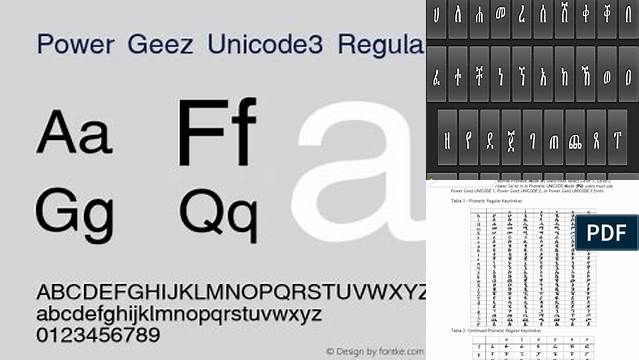
Hey guys! Looking to download the Power Geez Unicode 3 font for free in TTF format? You've come to the right place! This font is super useful for anyone working with the Geez script, especially if you need it for documents, websites, or graphic design projects. Let's dive into everything you need to know about it.
1. What is Power Geez Unicode 3 Font?
Power Geez Unicode 3 Font is a specially designed typeface that supports the Geez script, an ancient writing system used in several Eritrean and Ethiopian languages such as Tigrinya, Amharic, and Tigre. This font ensures that the characters are displayed correctly on computers and other digital devices. Unicode compliance means it works seamlessly across different platforms and applications, making it a reliable choice for professionals and enthusiasts alike. When you're dealing with languages that have unique scripts, having a font that accurately represents each character is crucial for clear communication and professional-looking documents. Think of Power Geez Unicode 3 as your go-to tool for ensuring your writing is both beautiful and technically sound. Using the correct font helps to maintain the integrity of the language and prevents any misinterpretation of the text. For anyone involved in publishing, education, or even personal projects in these languages, this font is an essential resource.
2. Why Use Power Geez Unicode 3?
So, why should you bother with Power Geez Unicode 3? Well, its Unicode compliance is a massive advantage. This means it's universally compatible, displaying correctly on virtually any computer or device. No more weird boxes or scrambled characters! Plus, it supports a comprehensive range of Geez characters, ensuring you can accurately represent any text. Imagine writing a document in Tigrinya and knowing it will look perfect no matter where it's opened. The clarity and readability it offers are also top-notch, making it ideal for both print and digital use. Whether you're drafting official documents, creating educational materials, or designing websites, this font will make your work look professional and polished. And let's not forget the peace of mind that comes with knowing your audience will see exactly what you intended, without any technical glitches. For anyone working extensively with Geez script, Power Geez Unicode 3 is an indispensable tool.
30. Tips for Optimizing Geez Text for Readability
Finally, here are some tips for optimizing Geez text for readability. Choose a font that is clear and easy to read, such as Power Geez Unicode 3. Use appropriate font sizes, line spacing, and margins to create a visually appealing layout. Avoid using too many different fonts or styles, as this can make the text look cluttered and confusing.